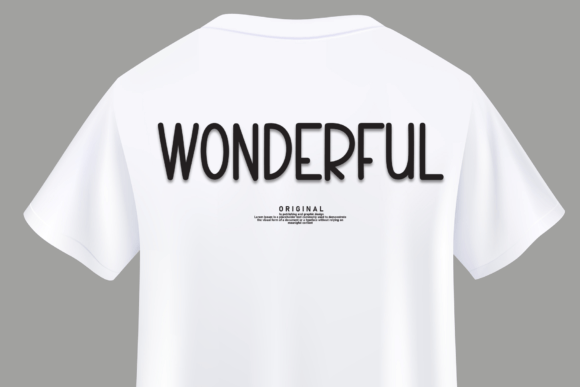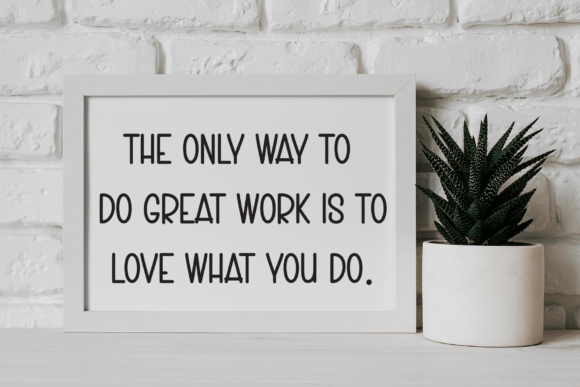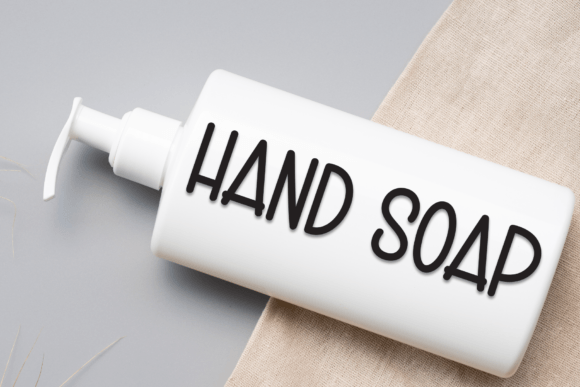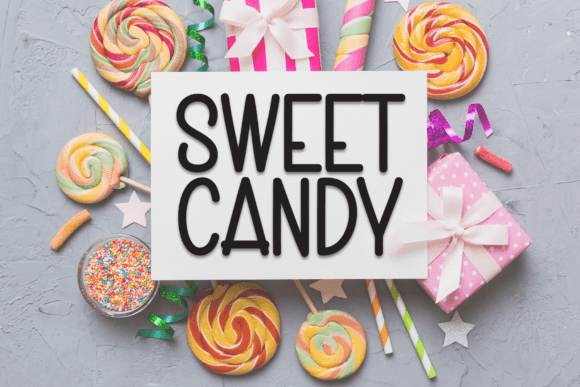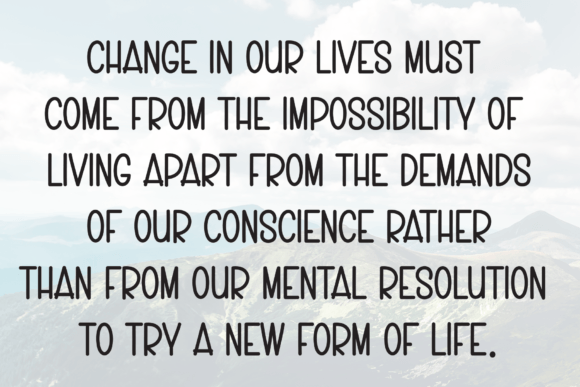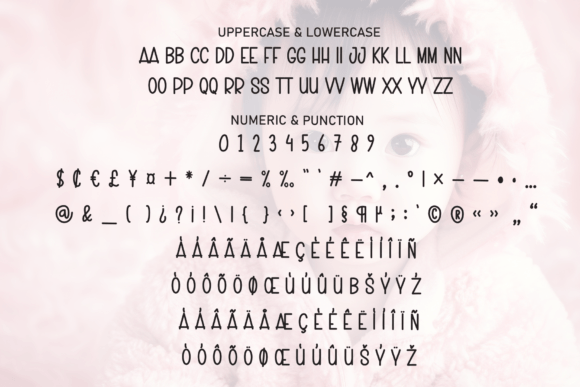
The Power of a Single Font: Bringing Joy to Your Designs
Have you ever been stuck in a creative rut, scrolling through your font library, searching for that one font that will bring your design to life? You know, that font that screams ‘fun’ and ‘playful’ and makes you feel like a kid again?
For designers, finding the perfect font can be a game-changer. And that’s where the Barbie Cutes Font comes in – a playful and bold display font that’s sure to add a cute and lively touch to any design. Its fun, chunky letters are perfect for creating cheerful and vibrant designs that are sure to grab attention.
Whether you’re designing a children’s book, a marketing campaign, or simply a social media post, the Barbie Cutes Font is a valuable addition to any designer’s toolkit. Its versatility and charm make it a must-have for anyone looking to add a little extra joy to their designs.
Key Features of “Barbie Cutes Font”
- Font Family: The “Barbie Cutes Font” is a sans-serif font family designed to evoke a sense of playfulness and femininity.
- Unique Characteristics: The font features rounded edges, soft curves, and a delicate touch, making it perfect for designs that require a touch of whimsy and charm.
Barbie Cutes Font Review
First off, I have to say that Barbie Cutes Font is a unique and playful font that can add a touch of whimsy to your designs ✨. It’s perfect for creating a fun and youthful vibe, especially when used for social media graphics, children’s products, or even fashion brands.
The font is highly customizable, with a wide range of styles and weights available, making it easy to create a consistent look across your designs ✨. It also comes with a lot of special characters and symbols that can add an extra layer of personality to your work.
However, there are some limitations to using Barbie Cutes Font that you should be aware of ⚠️:
- It may not be suitable for more formal or professional designs, as it can come across as too playful or childish.
- The font may not be legible at smaller font sizes, which can make it difficult to read in certain contexts.
- It may not be compatible with all devices or operating systems, which can lead to inconsistencies in how the font is displayed.
Overall, I think Barbie Cutes Font is a fun and creative option for designers who want to add a touch of personality to their work ✨. However, it’s not a one-size-fits-all solution, and you should carefully consider its limitations before using it in your designs.
For the best results, use the “Barbie Cutes Font” in conjunction with bright, pastel colors and whimsical illustrations.
The “Barbie Cutes Font” is perfect for:
- Baby shower invitations and decorations.
- Wedding invitations and decorations with a vintage or whimsical theme.
Alternatives to “Barbie Cutes Font” for Designers
Great Vibes is a beautiful, elegant script font that is perfect for creating a whimsical and romantic atmosphere. It’s ideal for wedding invitations, greeting cards, and other designs that require a touch of sophistication and charm. Compared to Barbie Cutes Font, Great Vibes has a more refined and polished look, making it a great choice for designers who want to add a bit of sophistication to their designs.
Pacifico is a stylish and modern script font that is perfect for creating a beachy and relaxed vibe. It’s ideal for designs related to travel, summer, and leisure activities. Compared to Barbie Cutes Font, Pacifico has a more laid-back and casual look, making it a great choice for designers who want to create a fun and carefree atmosphere.
Q: Can I customize the Barbie Cutes Font to create a new font style?